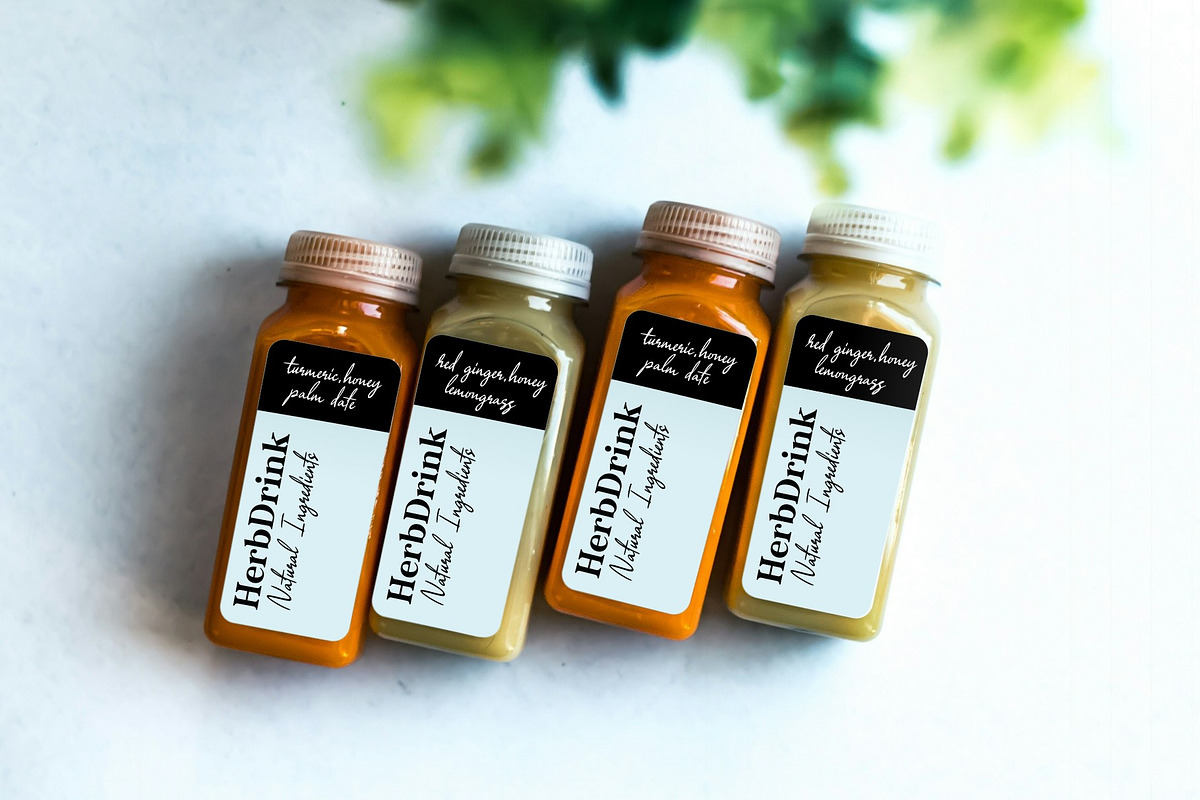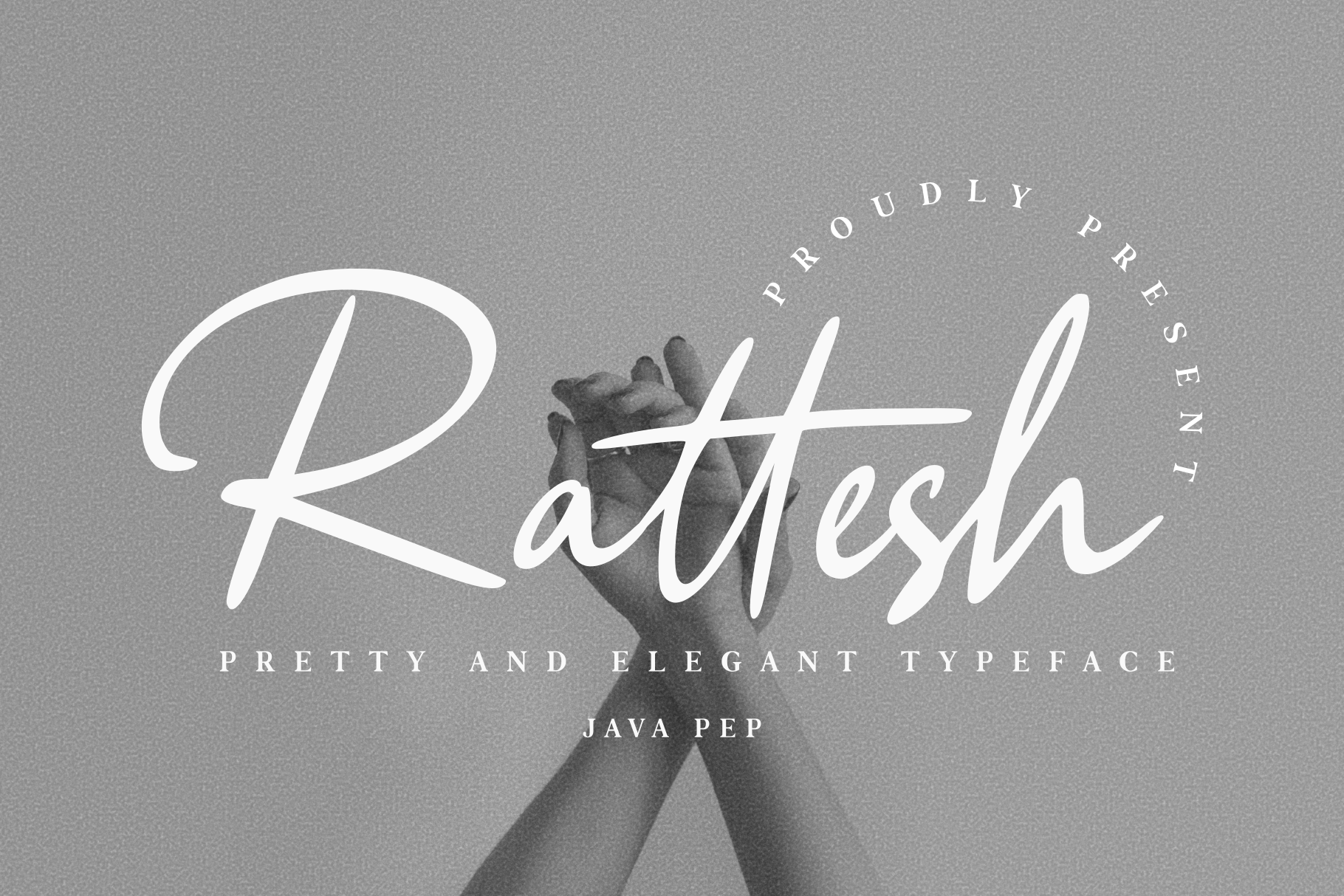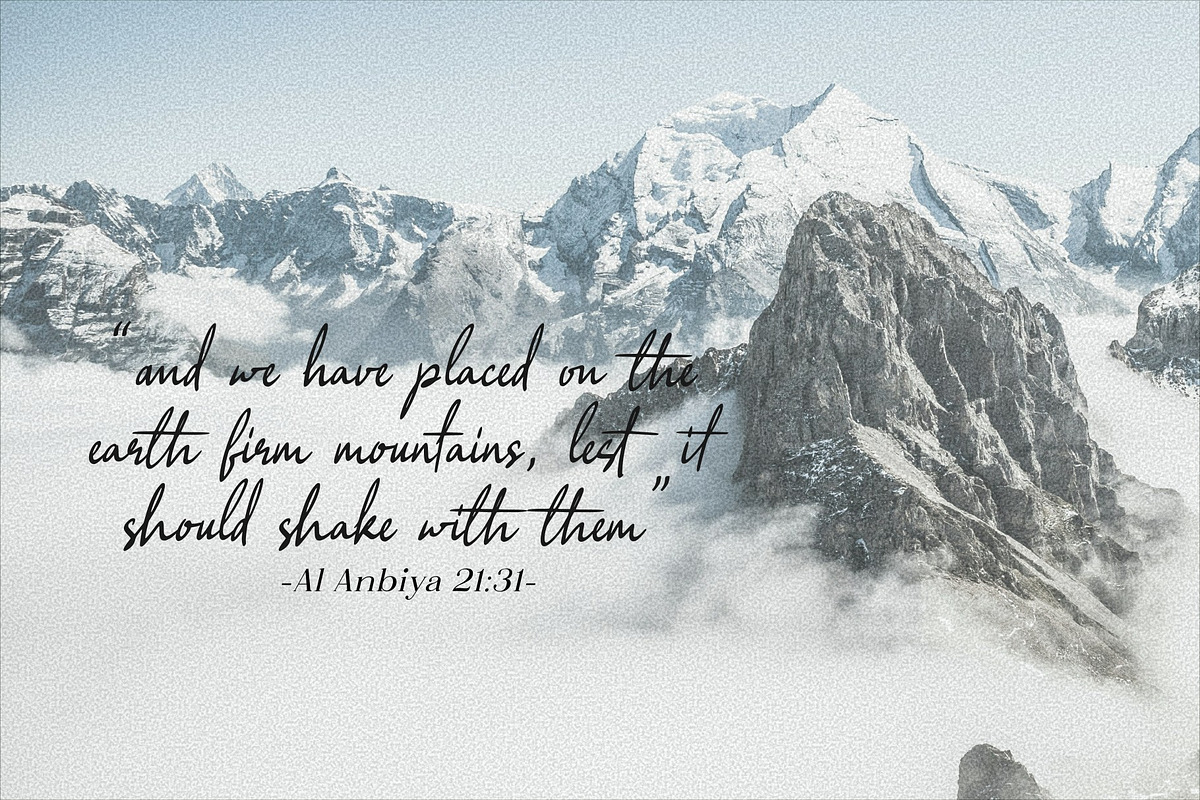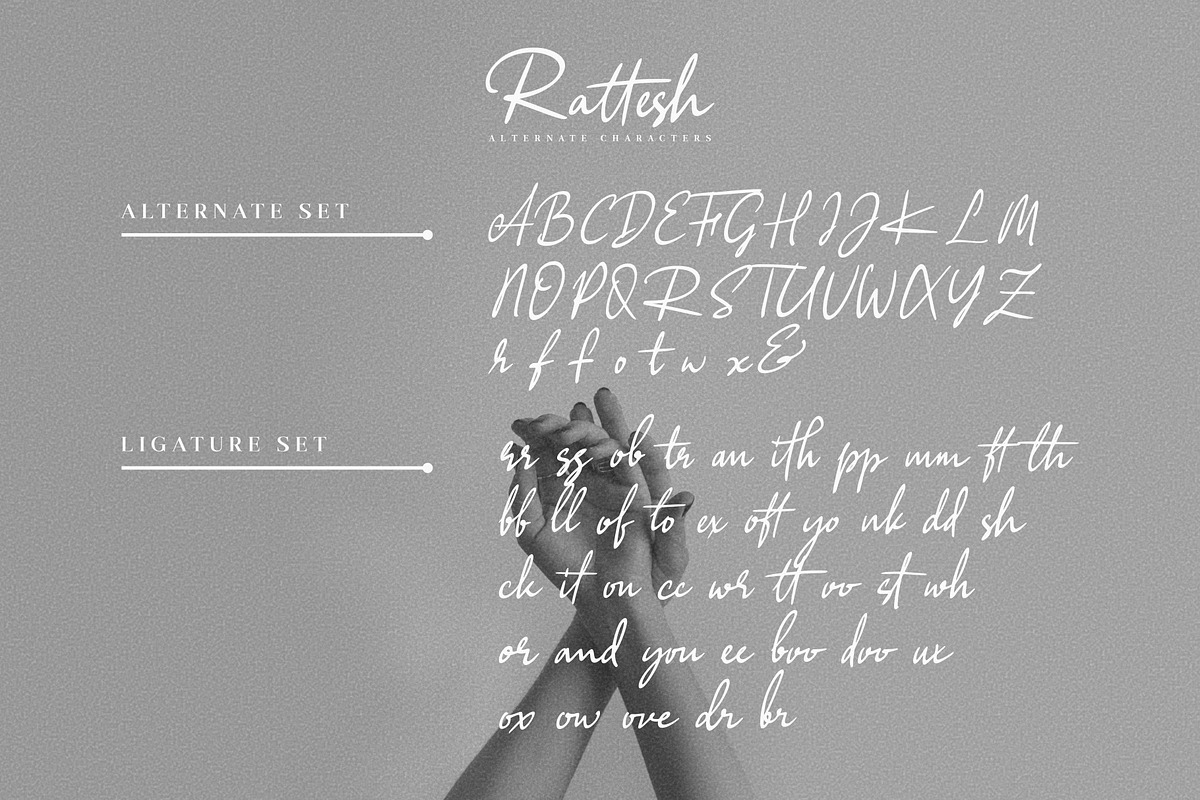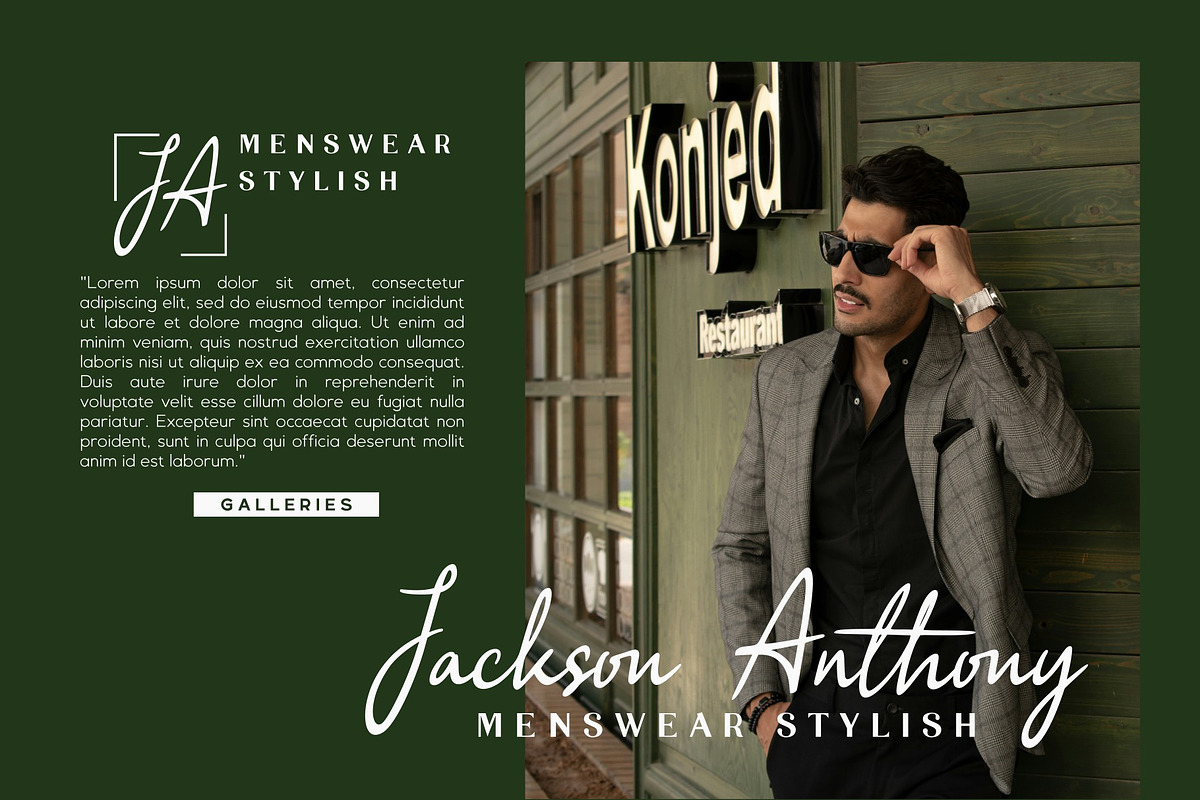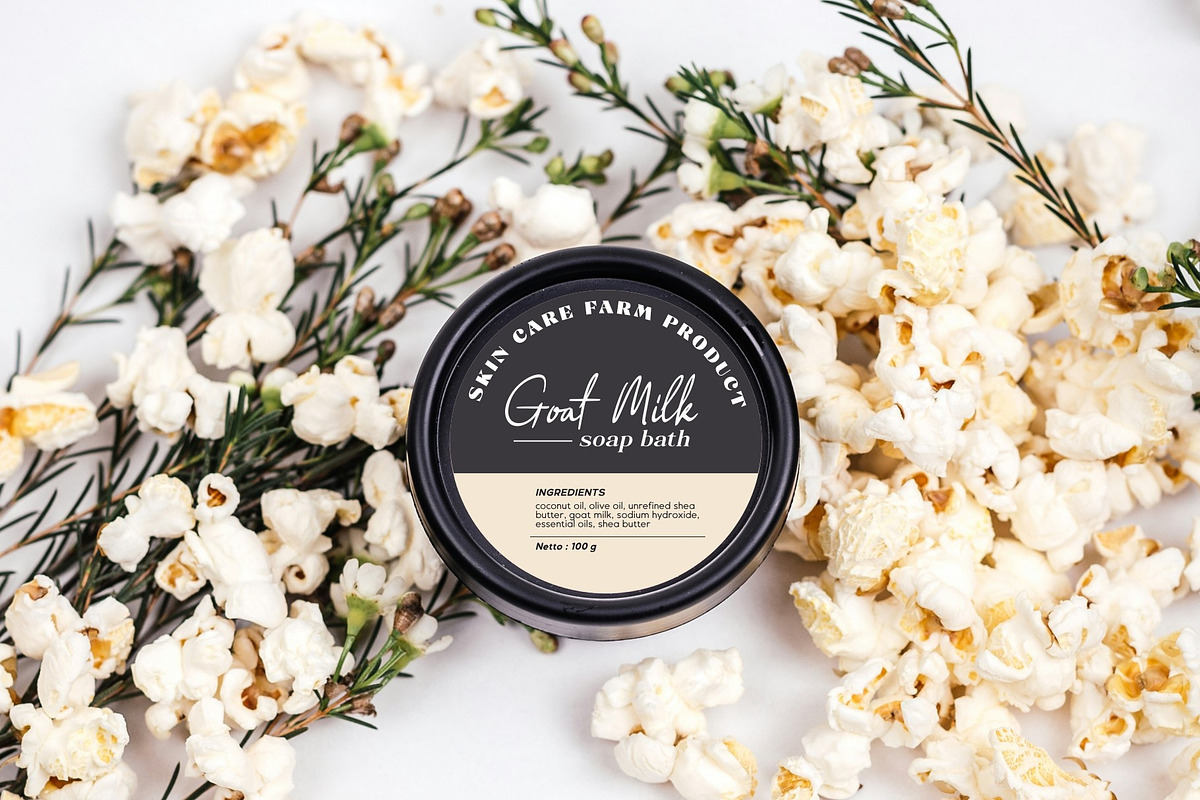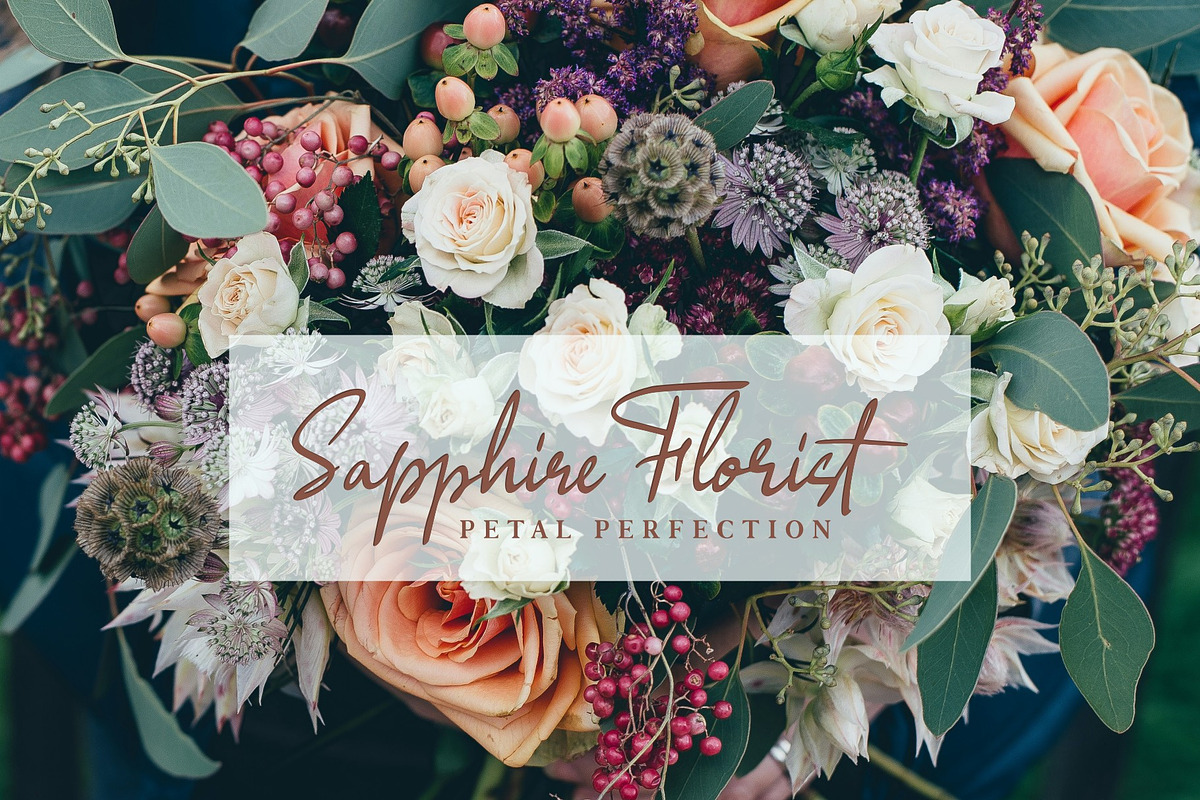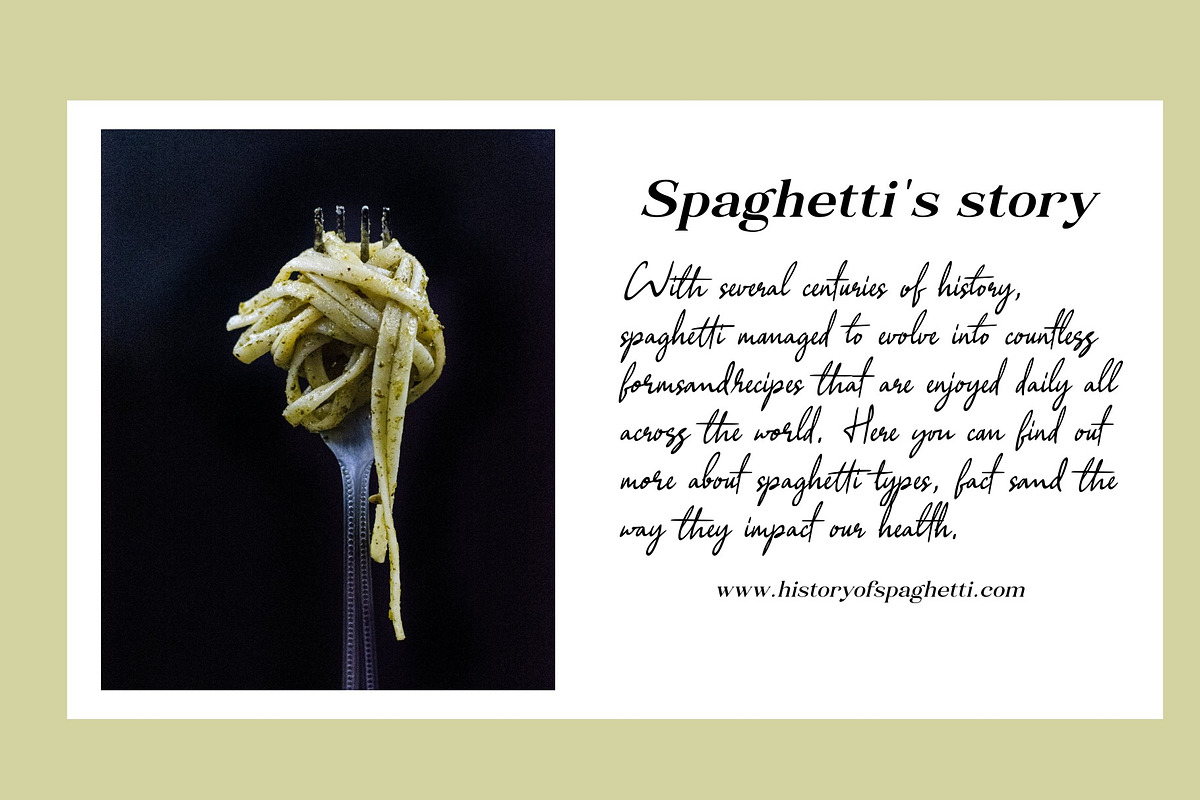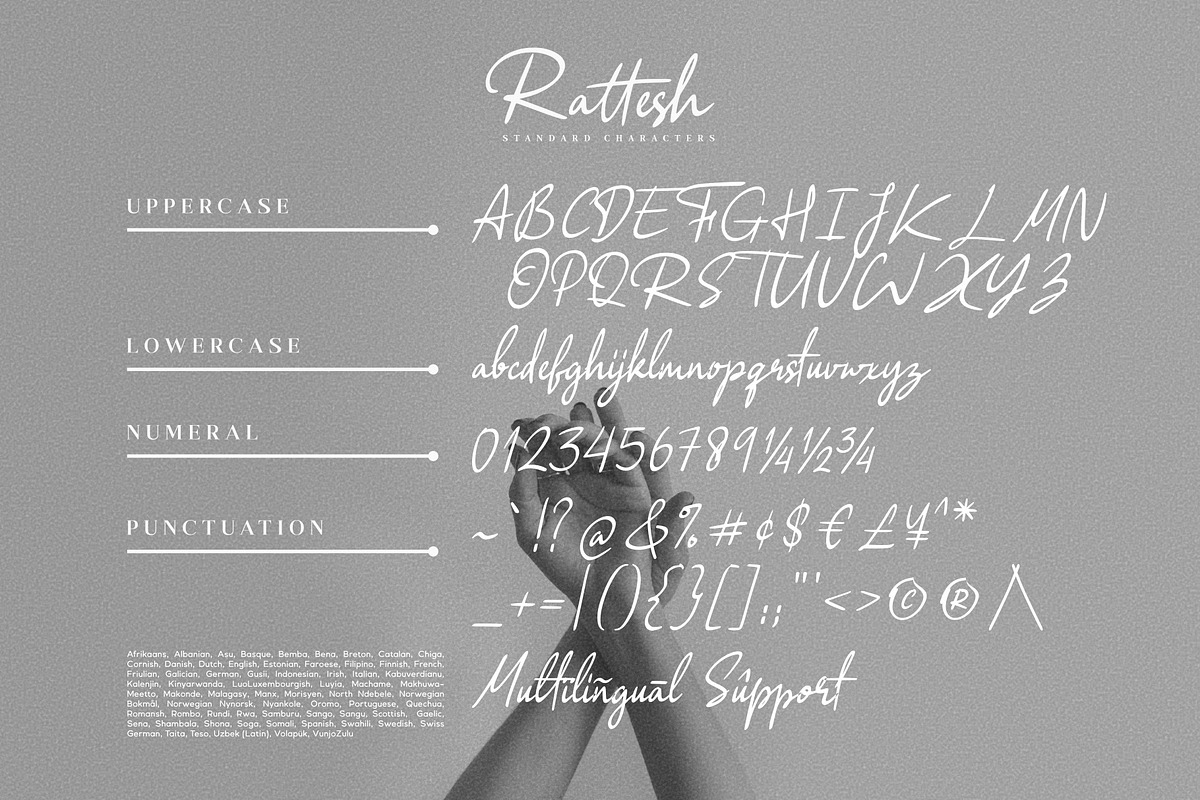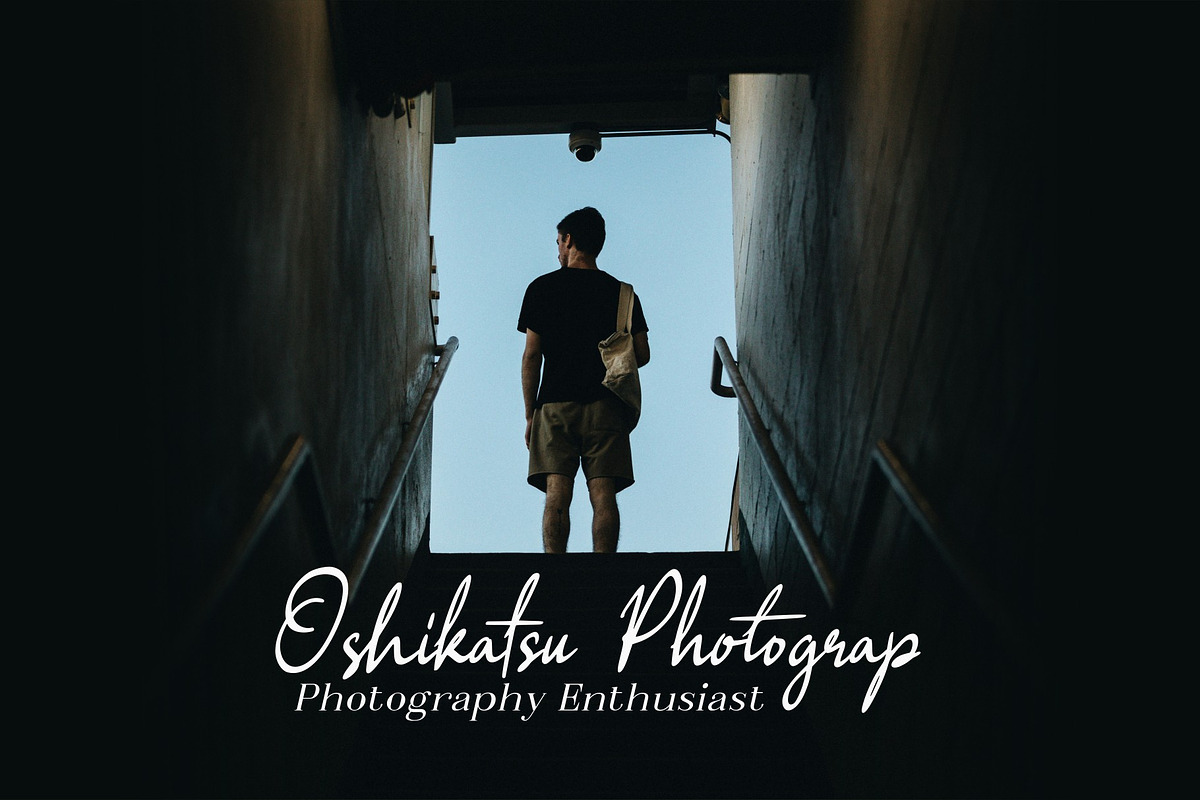
Rattesh / Elegant Typeface
Make your project awesome and outstanding looks with an elegant typeface called Rattesh font. This font comes with a lot of ligature sets and alternate fonts that make every word and sentence can be flawless like handwritten. Rattesh fonts are perfect for logo branding, advertising titles, headlines, logo fonts, quote fonts, packaging products, publishing, etc.
- Uppercase, lowercase, numeral, and punctuation
- Multilingual support in more than 25 languages